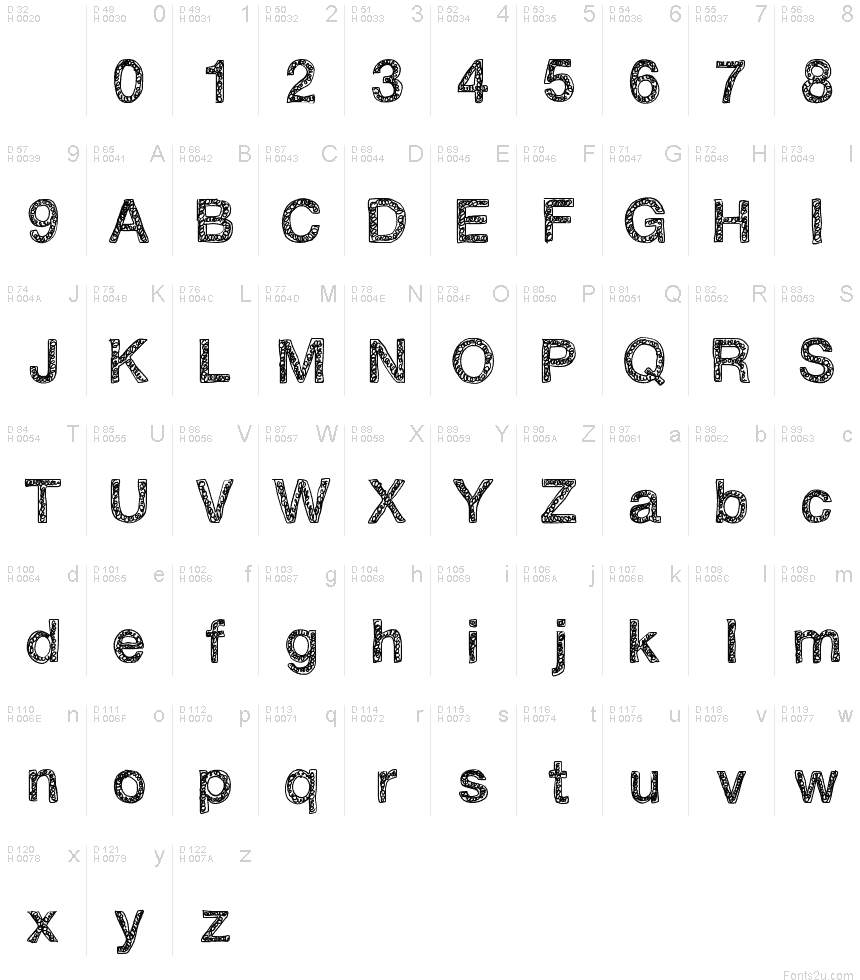
Swirlvetica by LDF is a free decorative display font filled with loose, looping doodles. The broad letter shapes have uneven double contours, and the repeated curls turn each character into a small piece of pen-drawn pattern. It feels busy, cheerful, and deliberately homemade.
Those swirling interiors connect easily with sketchbook illustration, making the font a lively fit for children's publishing, craft packaging, and classroom posters. They can also echo curly hair, tangled thread, or trailing vines in event graphics and handmade product branding, so the ornament becomes part of the subject rather than a surface effect.
LDF
Swirlvetica